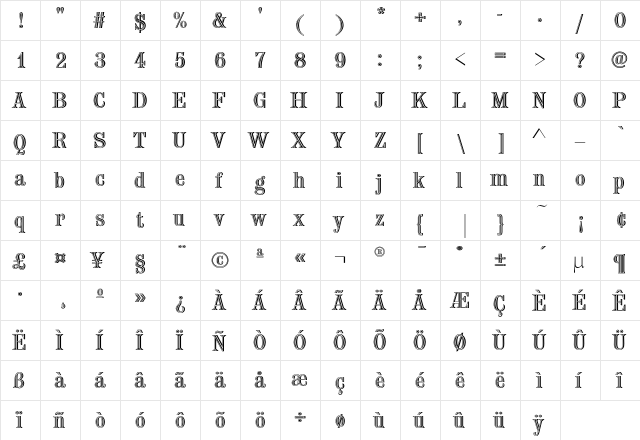
ChiselEF Regular
Design Context for ChiselEF Typeface
ChiselEF takes a measured approach to typography — its balanced proportions and neutral character make it a reliable workhorse for both digital and print work.